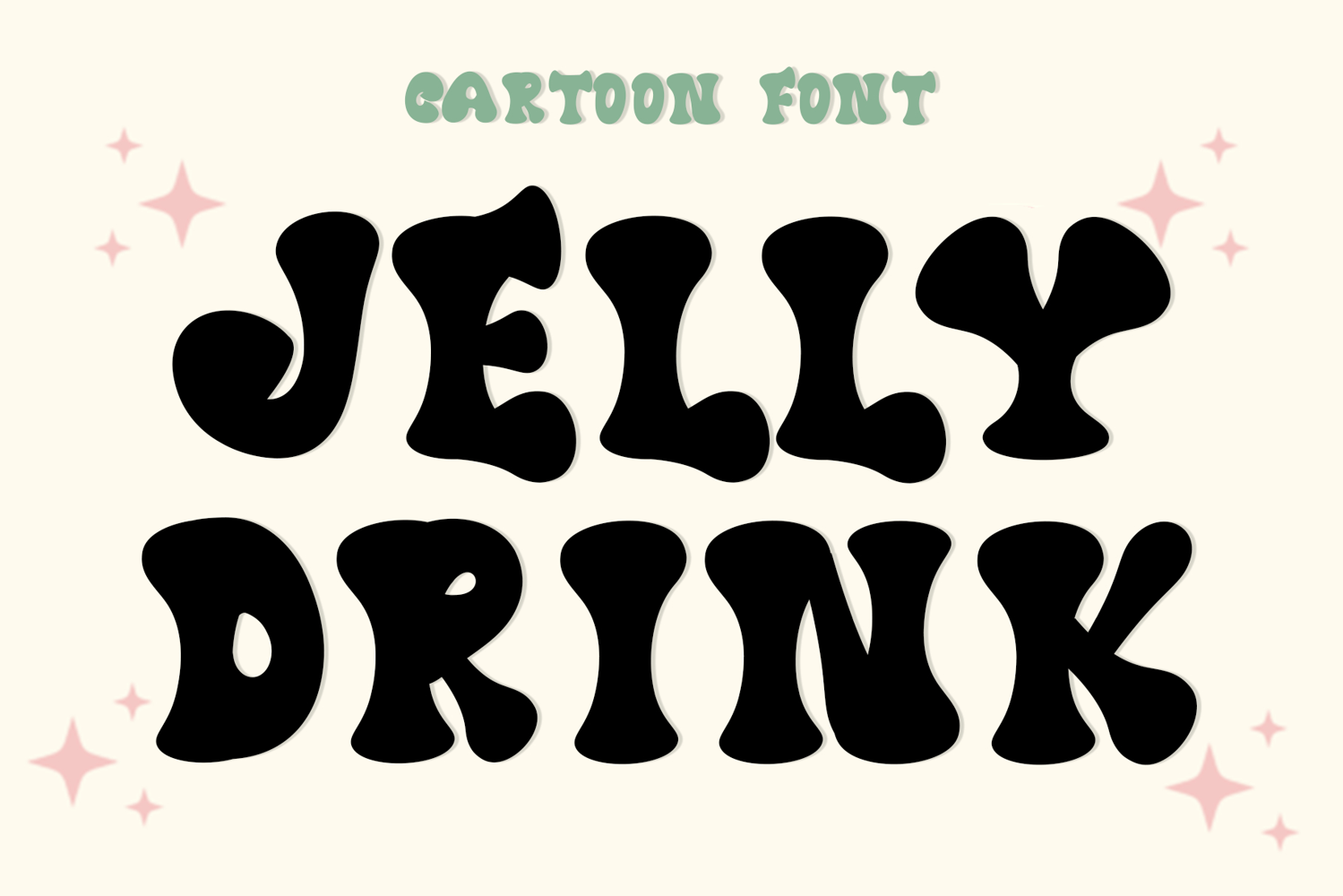
Jelly Drink
Jelly Drink is a beautiful and eye-catching font designed with a soft, unique touch. Its distinctive strokes give it a special character, making it meaningful and versatile for future use. With various characters, it’s perfect for design projects, crafts, and other creative works.